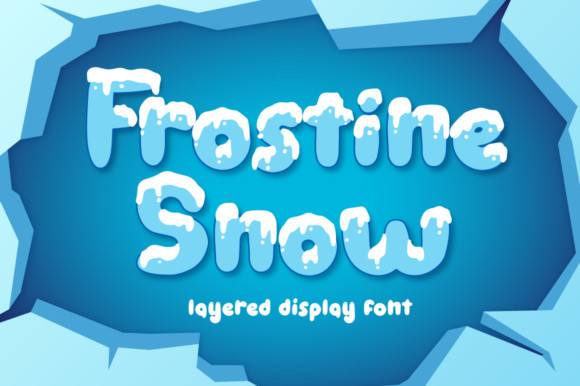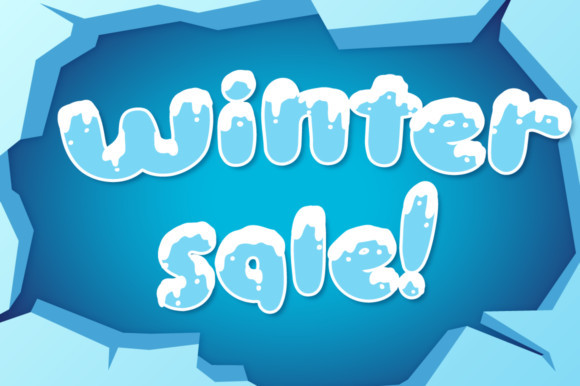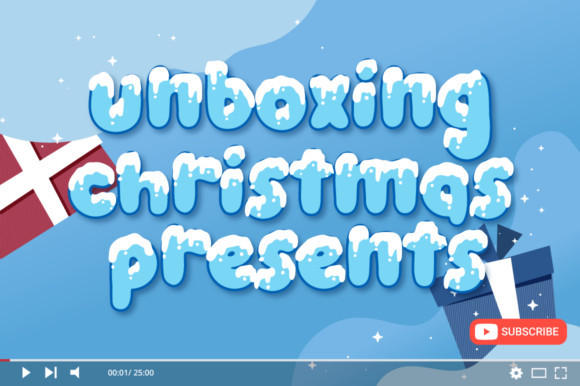
Frostine Snow Font
Frostine Snow is an incredibly cute and thick lettered display font. It is ideal for each of your winter designs or for any snow related project in general.